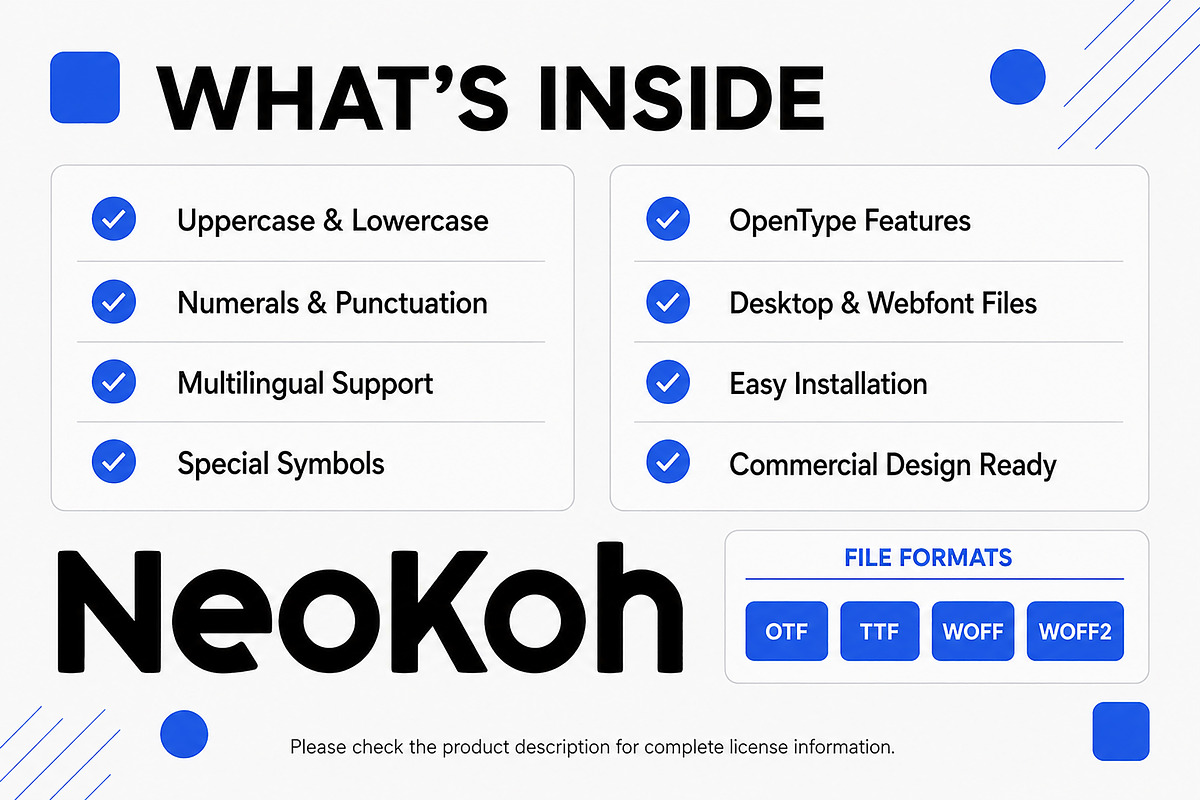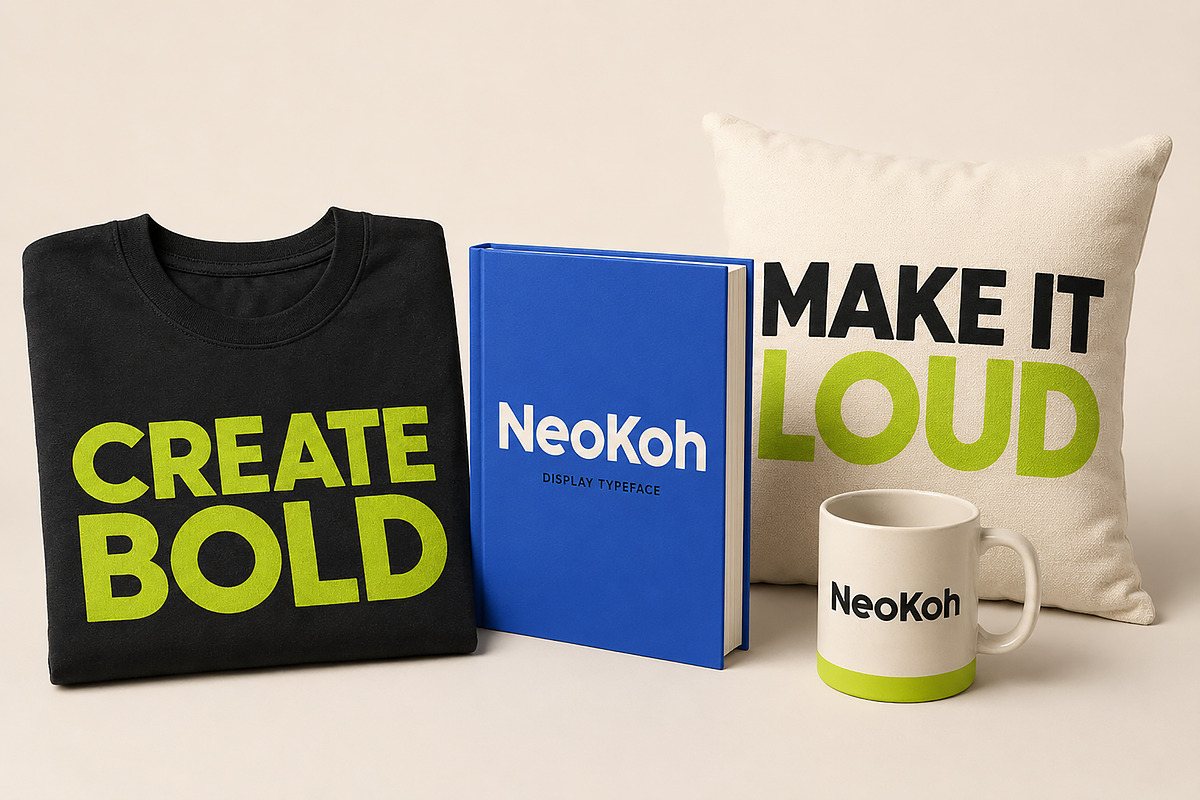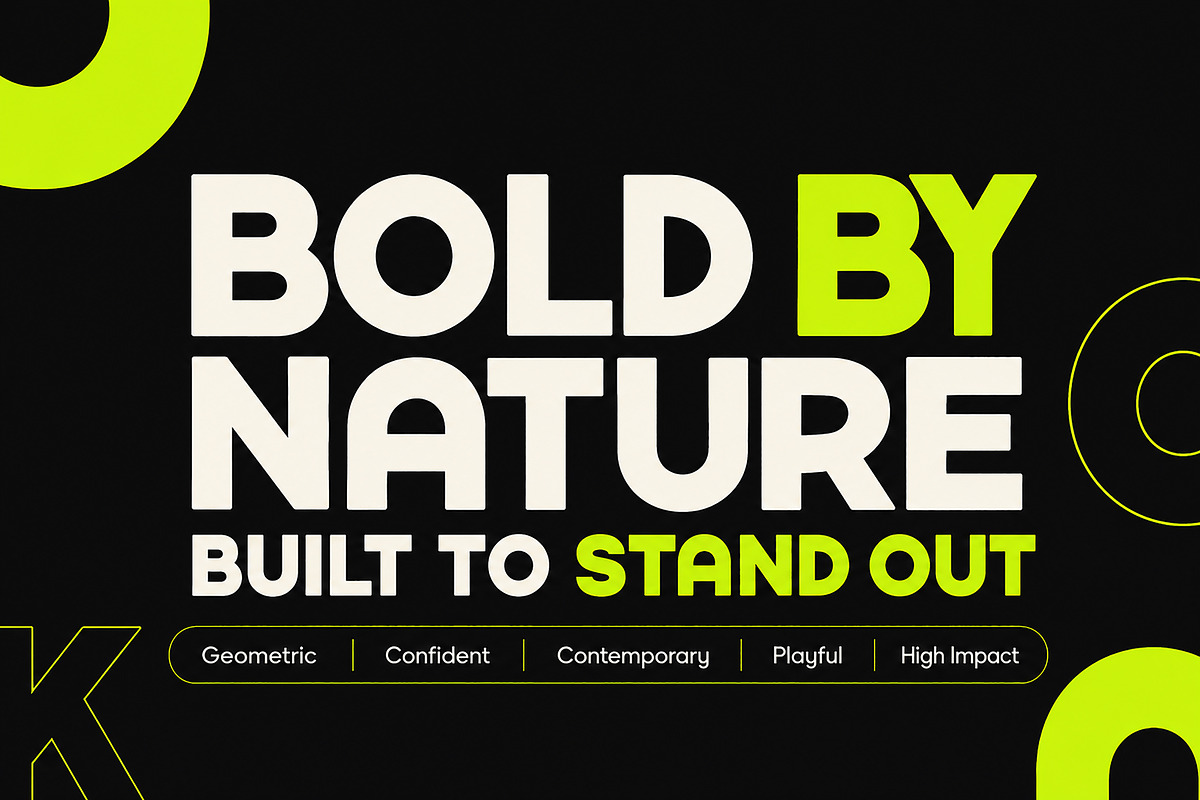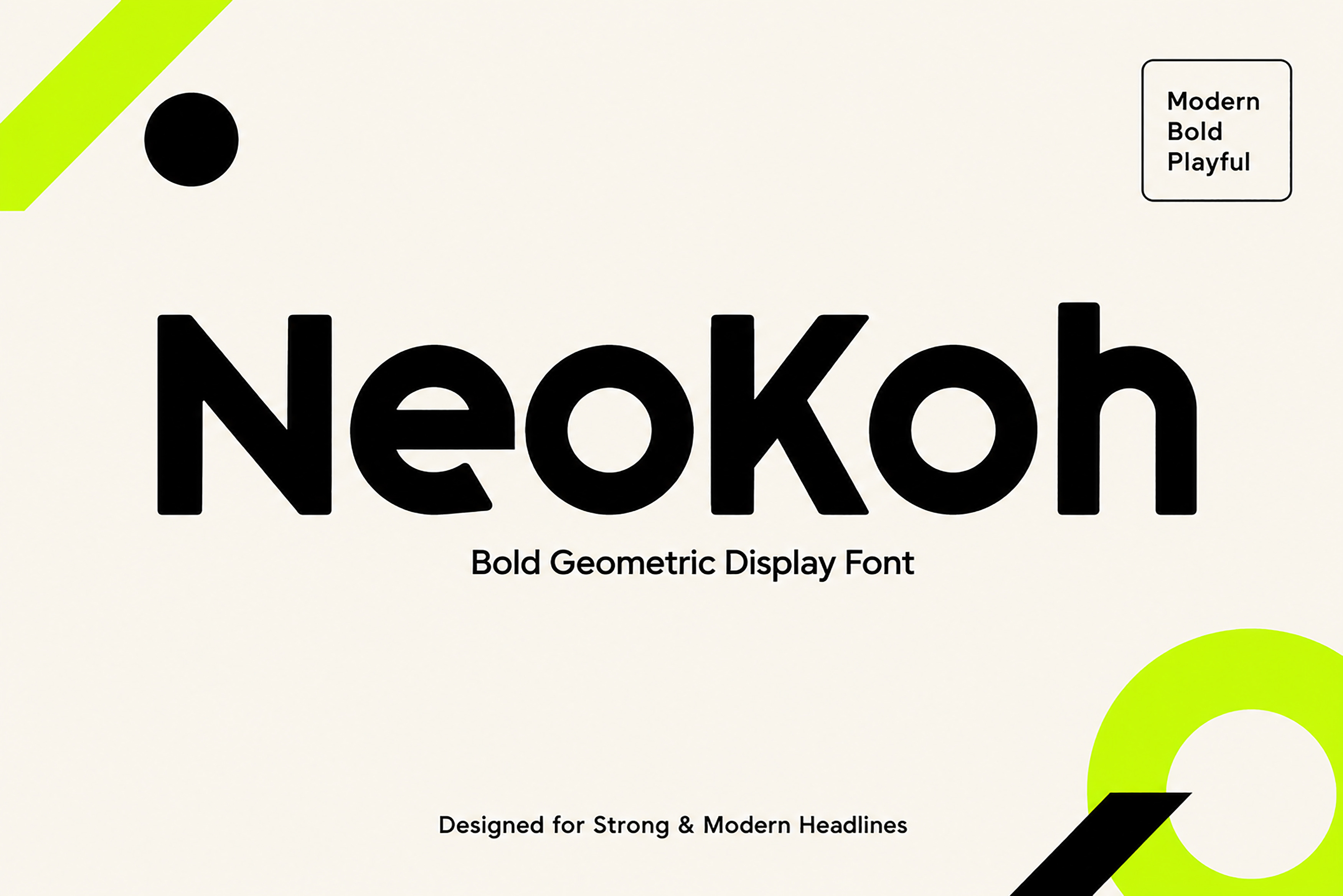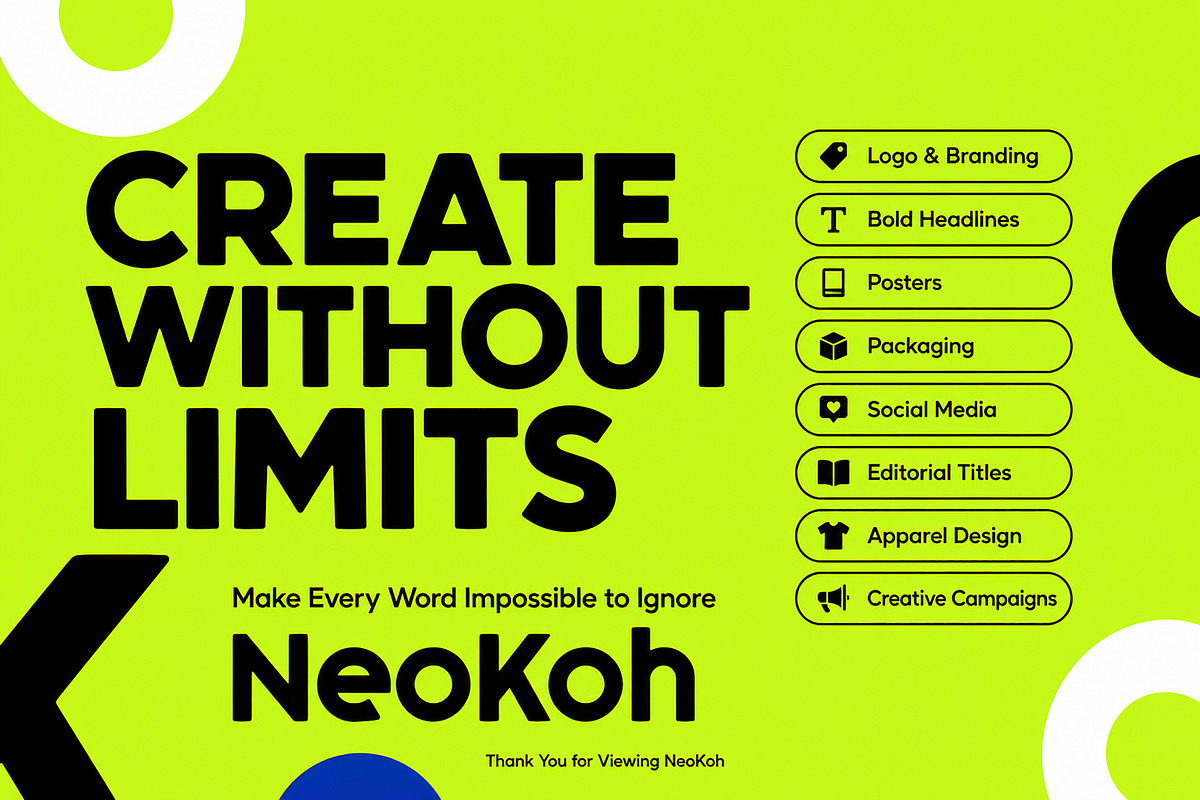
NeoKoh – Bold Geometric Display Font
NeoKoh is a bold geometric display font with chunky shapes, rounded forms, and playful angular details. Designed to make every word stand out, it is perfect for powerful headlines, logos, posters, packaging, apparel, editorial titles, and modern branding.
Meet NeoKoh, a bold and playful geometric display font created for designs that demand attention.
NeoKoh combines heavy letterforms, rounded counters, and distinctive angular cuts to create a strong contemporary personality. Its clean geometric structure keeps the typography readable, while its unconventional details give every word a memorable and expressive appearance.
Whether you are designing a bold logo, an attention-grabbing poster, modern packaging, apparel graphics, or a creative social media campaign, NeoKoh brings confidence and visual impact to your project.
NeoKoh works best in large sizes, making it an excellent choice for short headlines, titles, branding, promotional graphics, and statement typography.
Logo and branding
Bold headlines and titles
Poster design
Product packaging
Editorial layouts
Apparel and merchandise
Advertising campaigns
Website headers
Book and magazine covers
Music and event graphics
Creative visual identities
Bold geometric construction
Rounded counters
Distinctive angular details
Create bold, memorable, and attention-grabbing typography with NeoKoh. Make every word impossible to ignore.